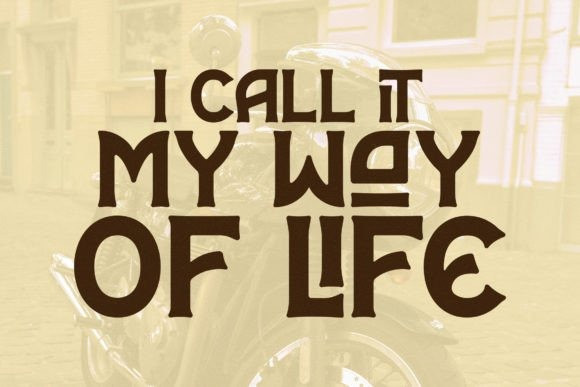
ROLNER Vintage Font
Rolner is a classic serif font with a unique style and modern look. It is perfect for elegant and luxury logos, book or movie title design, fashion brands, magazines, clothes, lettering, quotes, and much more. Add it to any of your creative projects, and you will be amazed by the results.